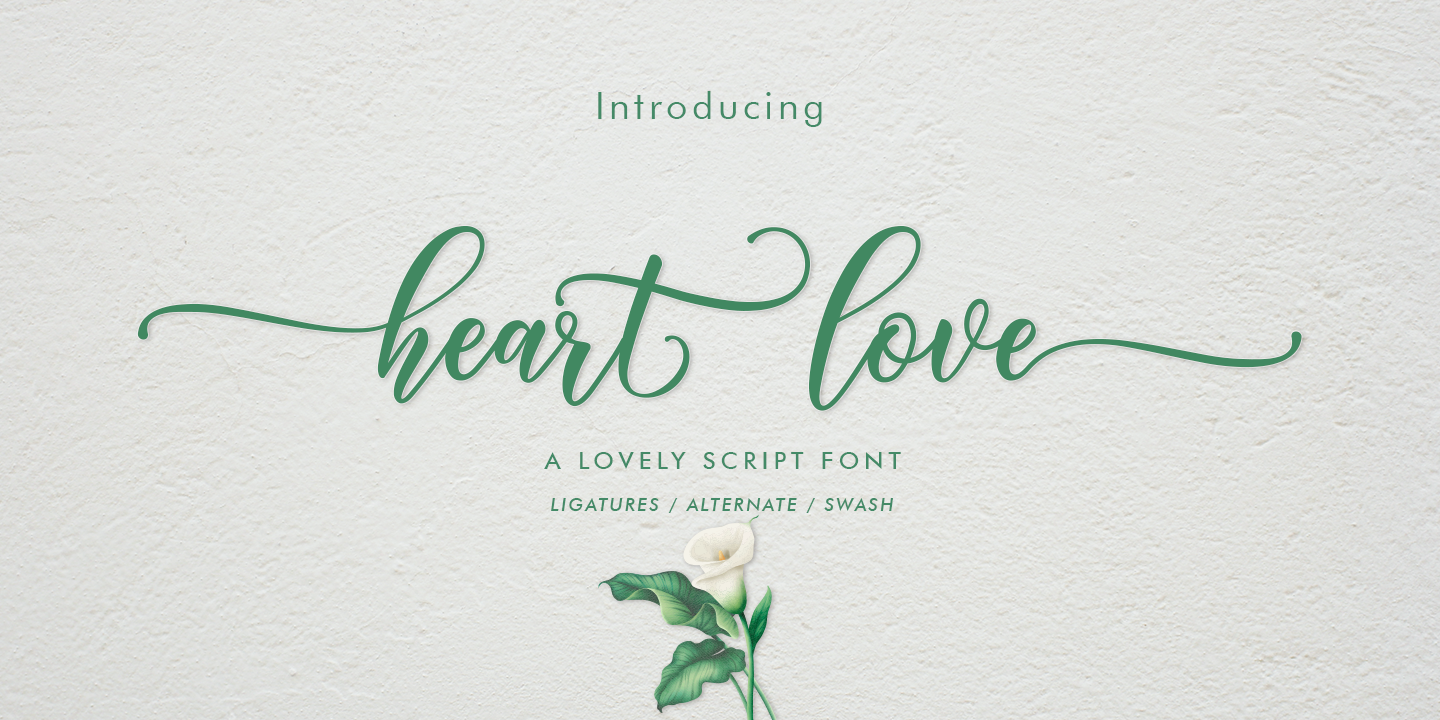
Heart Love Font is perfect for romantic wedding invitations, Valentine's Day marketing campaigns, love-themed greeting cards, anniversary celebration materials, couples therapy branding, romantic restaurant menus, dating app interfaces, and heartfelt social media graphics. This tender typeface excels in applications where romantic affection and emotional connection are essential.
What makes Heart Love Font so exciting is its enchanting ability to express deep emotional connection and romantic passion through graceful, heart-inspired letterforms that embody the tender beauty of love and the joy of intimate relationships. The font features soft character shapes with romantic flourishes and affectionate styling that evoke images of valentine hearts, loving embraces, and the magical moments that define romantic connections. Its love-focused design philosophy combines emotional authenticity with contemporary elegance, making it perfect for relationship brands seeking to convey heartfelt sincerity, romantic charm, and connection to couples and love celebration communities.
Heart Love Font belongs to the romantic script font family, specifically designed for love and relationship-themed branding applications. This typeface family emphasizes emotional visual flow through heart-inspired styling and romantic character elements, ensuring authentic love presentation across various wedding and relationship-focused design projects.
Express heartfelt emotions with Heart Love Font Free Download, a typeface that embodies the tender beauty of romantic love and emotional intimacy. This affectionate font delivers exceptional warmth for romantic applications, featuring comprehensive character sets with heart symbols and loving punctuation marks that capture the essence of deep connection and romantic celebration. Its lovingly crafted letterforms maintain excellent readability while preserving the authentic romantic aesthetic across various sizes, from intimate love letters to grand wedding venue displays. The font's distinctive heartfelt personality makes it invaluable for designers creating romantic brands, wedding materials, and love-themed content where conveying affection, tenderness, and emotional connection is crucial for engaging couples and romantic audiences seeking genuine expressions of love and meaningful relationship experiences.